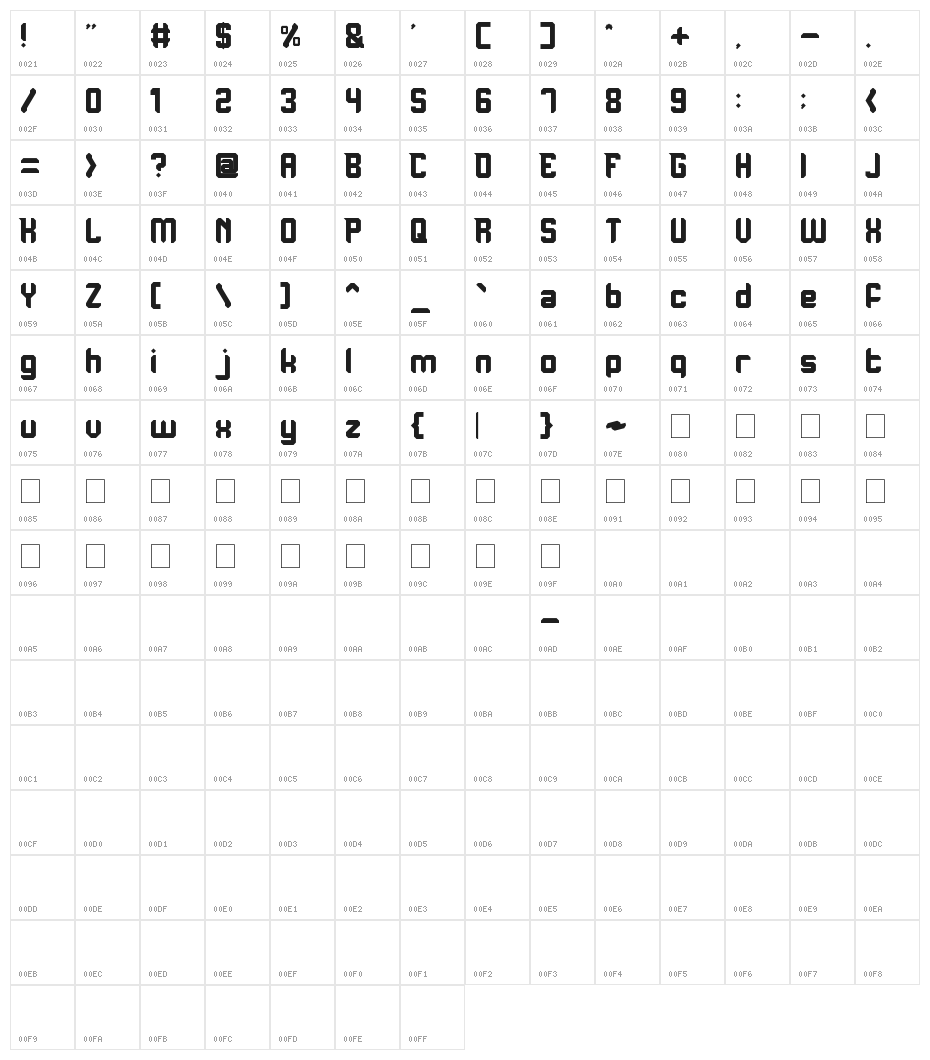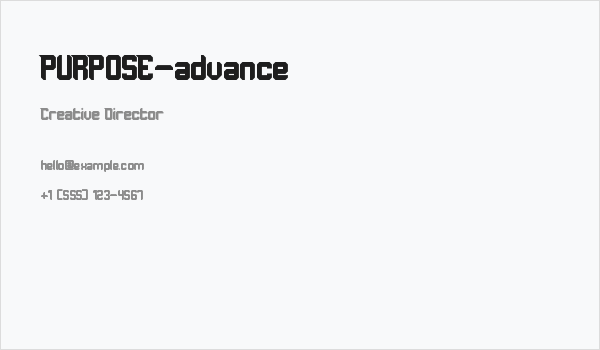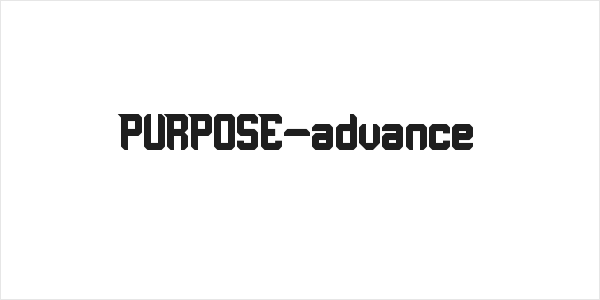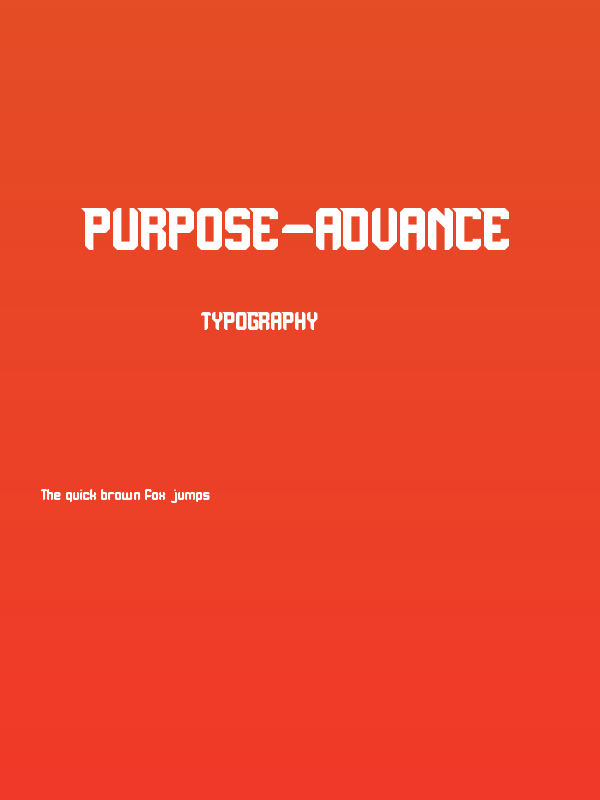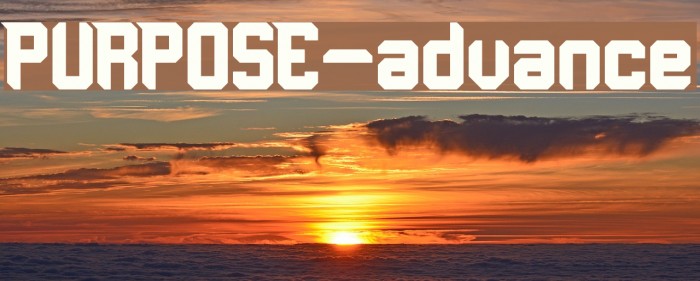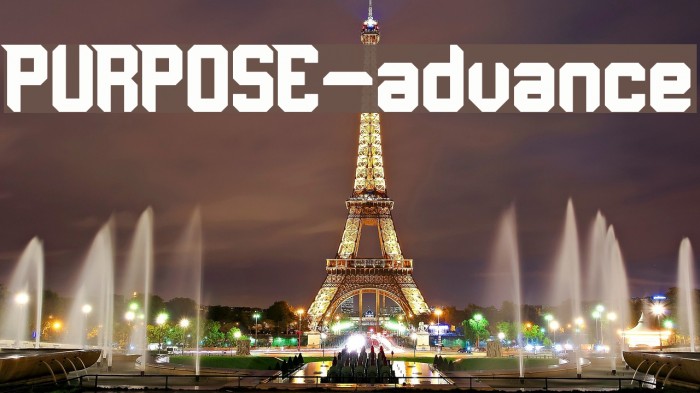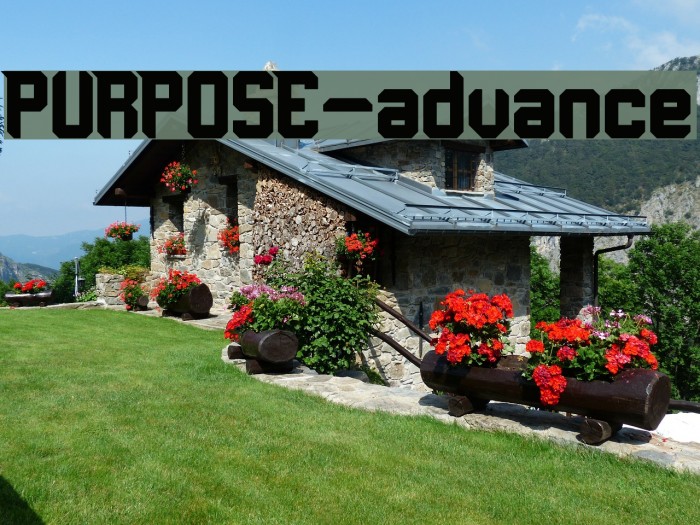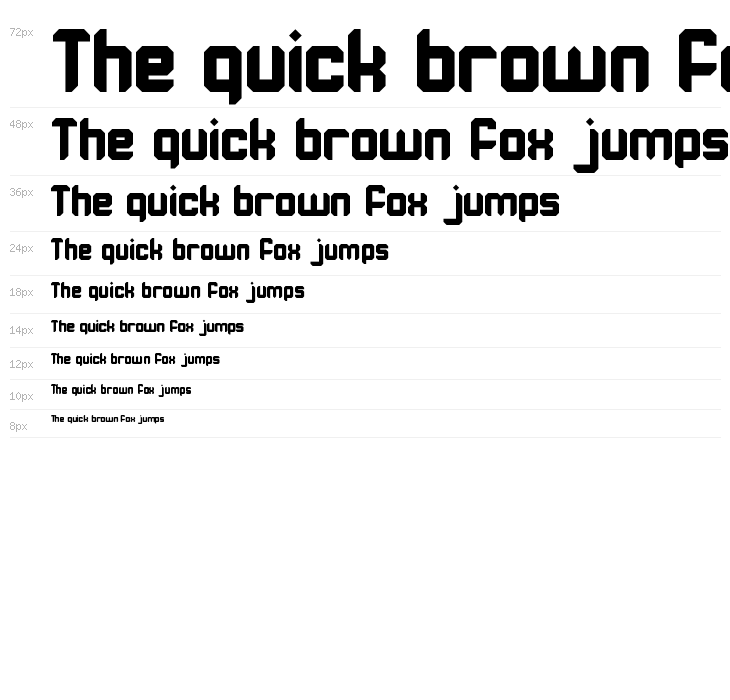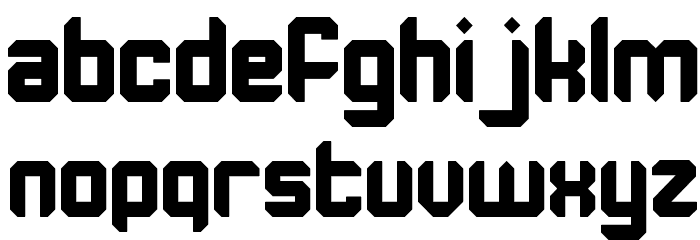
PURPOSE-advance Font
PURPOSE-advance Description
This font features a bold, geometric style with a strong presence. The characters are constructed with sharp angles and a blocky appearance, giving it a futuristic and industrial feel. The uppercase and lowercase letters maintain a consistent height, while the numbers and special characters follow the same robust design. The font's uniformity and distinct edges make it highly legible and impactful, suitable for attention-grabbing designs.
| Proposed Projects | Ideal for branding, posters, video game graphics, and any project requiring a modern, bold typeface. |